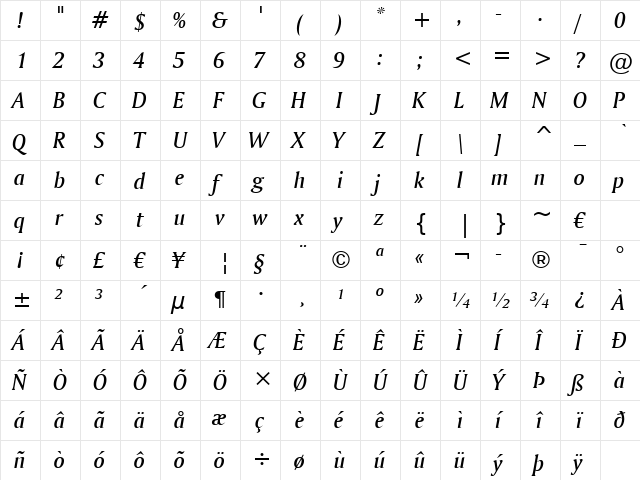
Amerigo Md BT Medium Italic
Design Context for Amerigo Md BT Typeface
Amerigo Md BT takes a measured approach to typography — its balanced proportions and neutral character make it a reliable workhorse for both digital and print work. The slanted form adds forward momentum and visual energy.
Pro Tip: Use Amerigo Md BT for emphasis, pull quotes, and subheadings where its slanted energy can add rhythm to the layout.